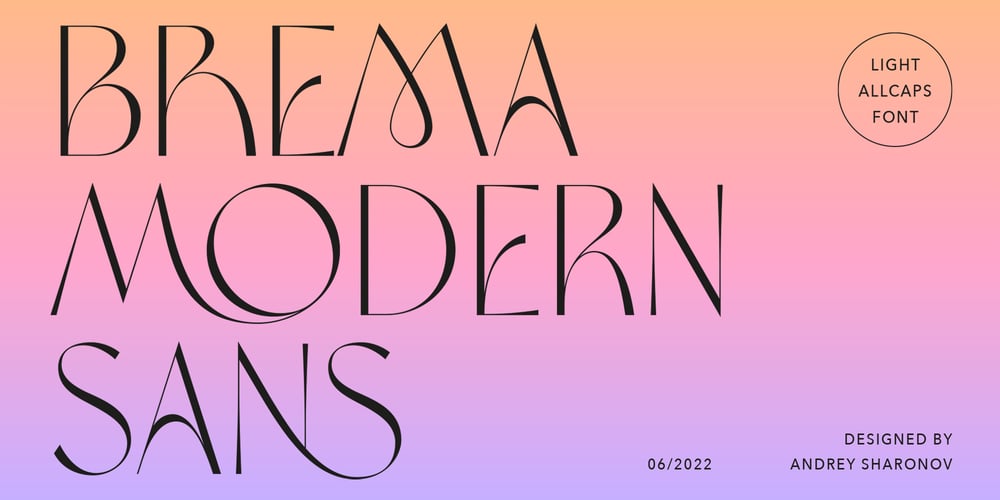
Brema Font Family was designed by Andrey Sharonov and published by Andrey Sharonov. Brema contains 1 styles and family package options. Brema is a modern Sans Serif typeface with light weight anatomy. Created for using principally in big sizes, there is perfect solution first of all for web design, but also very well for fashion magazine tittles, luxury perfumes and cosmetics, logotypes, outdoor advertising and other design projects.OpentypeBrema comes with 38 beautiful Ligatures and 17 Stylistic Alternates. To get Alternate just add number 2 after character (works with activated Standard Ligatures). Or use Stylistic Alternate option for change all available characters. Ligatures works with activated Discretionary Ligatures option. Note that this features only works with lowercase letters. Multilingual SupportYou can use Brema for following languages: Danish, Dutch, English, Estonian, Faroese, Finnish, French, German, Hungarian, Icelandic, Italian, Norwegian, Polish, Portuguese, Slovene, Spanish, Swedish, Turkish.